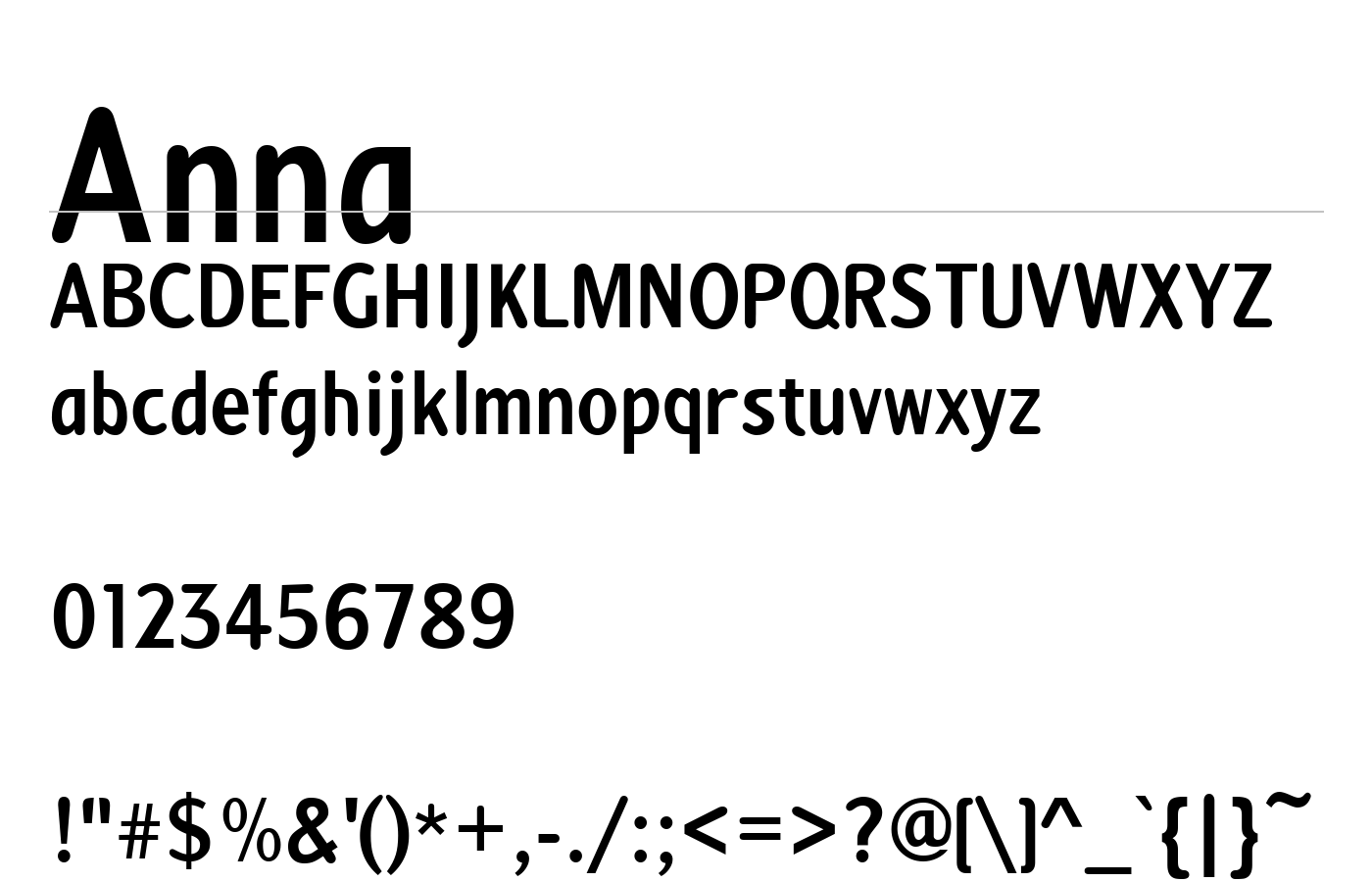
Anna Font is a clean and modern sans serif typeface with a narrow, slightly condensed structure that gives it a distinctive and compact appearance. Its uniform stroke weight, rounded terminals, and simplified letterforms convey a friendly yet professional tone, making it versatile for both digital and print use. This font works well for headlines, branding, and user interfaces where clarity and a contemporary feel are essential.
Anna Font